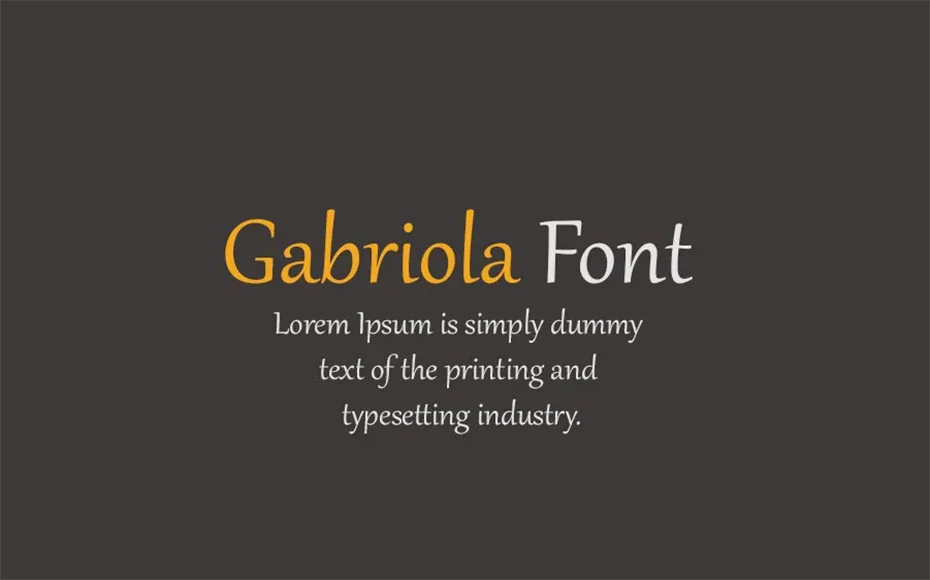
Gabriola Font has a distinct appeal made for logos, banners, and social media promotions. With a stylish and modern vibe, this display serif font is built to stand out.
John Hudson was the one who took the credit for designing it for the first time during 2008. This font is an inspiration of a Dutch calligrapher Jan van de Velde the Elder.
This is the most amazing aspect of Gabriella. It is being used by Microsoft Corporation. And Windows 7, Windows 8, and Microsoft Office 2010.
Moreover, You can easily identify the text featuring Gabriola font because of its smart letterforms. Just take a look at the appearance of “Q”, “f”, and “J” which show different styles of calligraphy.
Font Name:Gabriola Font
Style:Serif, Display, Typeface
Font Designer:John Hudson
Due to its high-grade legibility, this fancy font family is ideal for many designing purposes. You can use it for creating elegant books texture, logo designs, brochure makings, banners designs, and plenty more.
This font is available in a single style. That comes in a very keen and artistic style with advanced Open type features.